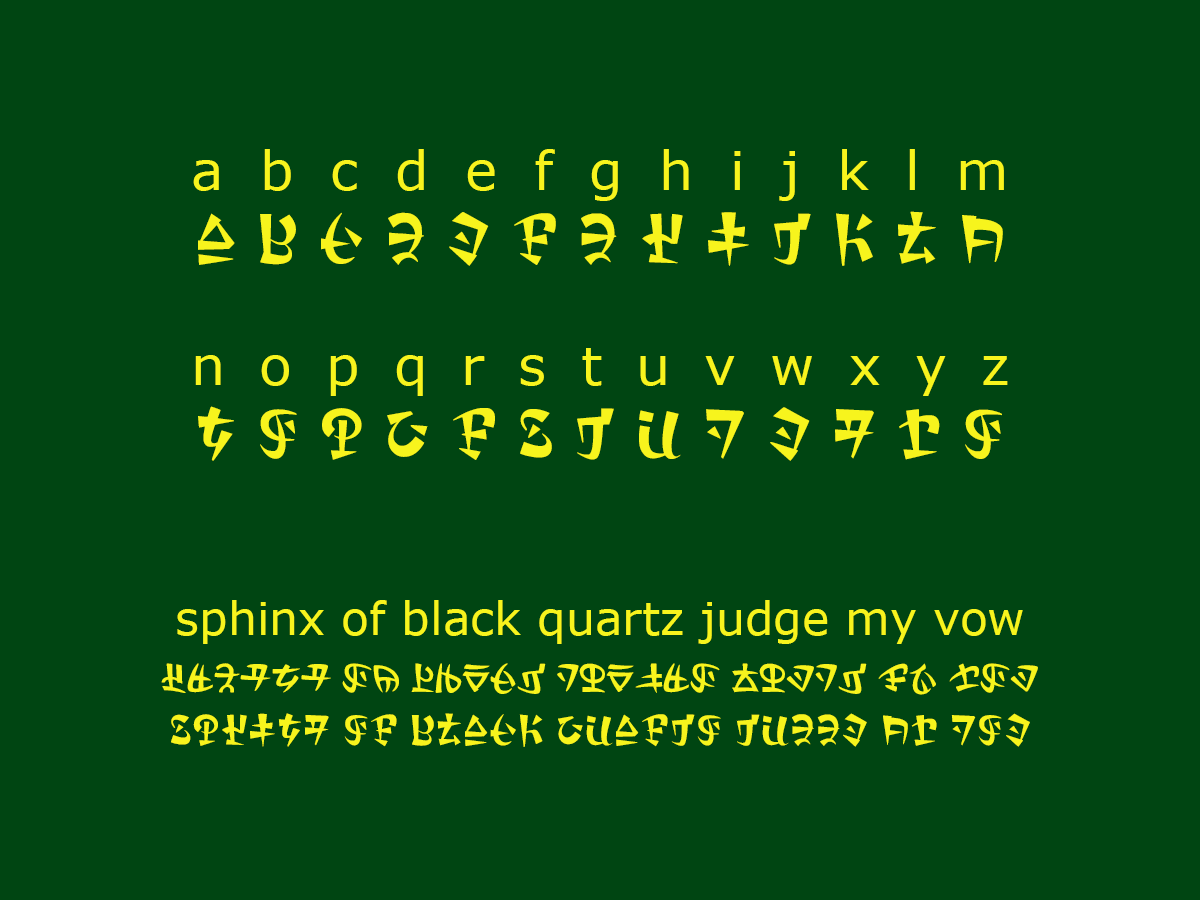
I was a bit hesitant to share this because I've never really done anything like it, but I figure some LoZ fans might find it interesting and fun, so here it is. I noticed that A Link Between Worlds, Tri Force Heroes, and Breath of the Wild all use a different Hylian script from the Hylian in Skyward Sword, but couldn't find a workable font for it so I...sat down and made one.I used the chart for "Sixth Hylian Script" on the Zelda Wiki page as a reference, so there's only A-Z, which I duplicated so that the correct characters should show whether capitalized or not. Some of the characters are repeated, as per the information from the wiki. Should information for stuff like punctuation show up, I'll try to update the font.
This Hylian script is slightly different from SS Hylian, and I included a sample sentence to compare and contrast at the bottom of the preview here: from top to bottom I have the sentence in Verdana, Skyward Sword's "Ancient" Hylian (which was made into a font by Sarinilli and can be found here ), and the "sixth Hylian script" (font files are named "AlbwBotwHylian-Regular").
-font contains characters A-Z (upper and lower cases) based upon reference of "sixth Hylian script"